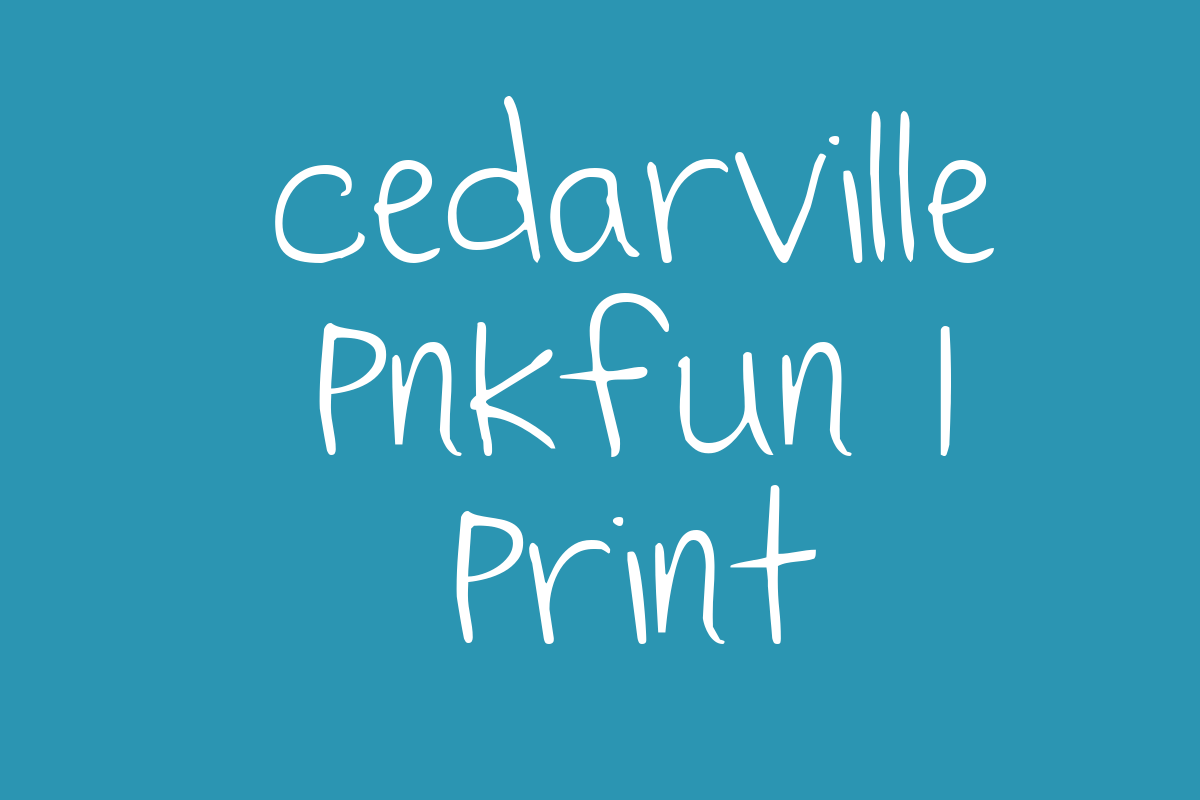
Cedarville Pnkfun 1 Print
KG CEDARVILLE PNKFUN1
KG Cedarville Pnkfun1 is a script and print font family created by Kimberly Geswein in 2010. The cursive has jagged connections and works great for designs where you want the text to look like it was written in a rush. The print version is similar, with unique sizes for many characters as well as an mix of left and right-leaning glyphs.
Cedarville Pnkfun 1 Print